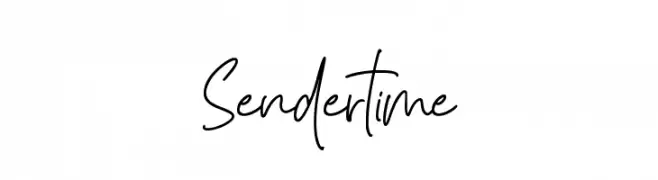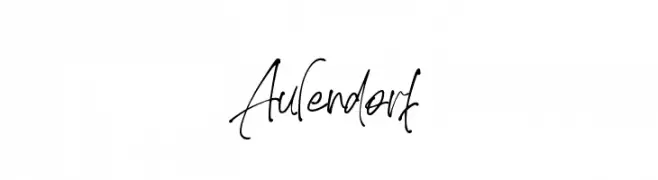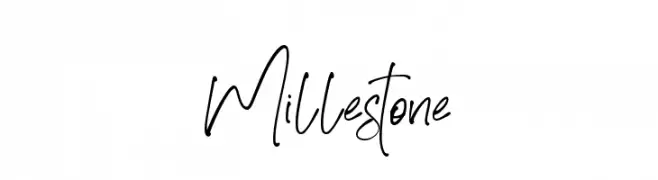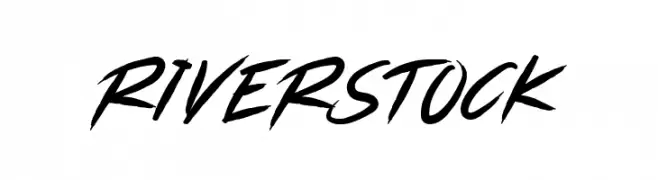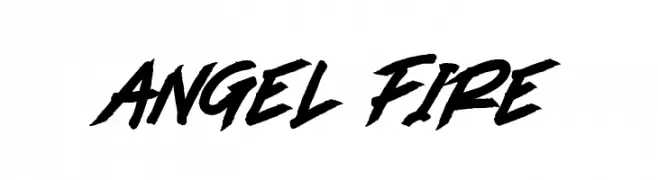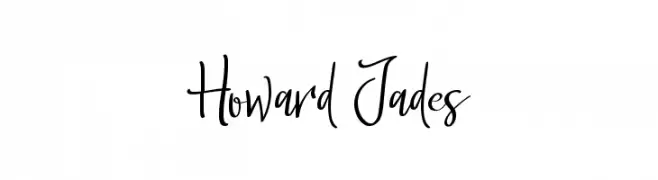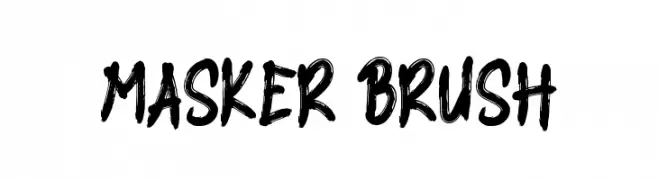
A casual, handwritten font with fluid, dynamic strokes and a natural flow.
A dynamic handwritten font with fluid strokes and playful curves.
A lively and expressive handwritten font with fluid, dynamic strokes.
A bold, brush-style font with dynamic, textured strokes and an expressive, artistic appearance.
A lively and expressive handwritten font with fluid, dynamic strokes.
A bold, energetic script font with dynamic, sweeping strokes.
A bold, dynamic script font with brush-like strokes and a handwritten style.
A lively, handwritten font with dynamic strokes and playful loops.
A bold, dynamic brush-style font with expressive strokes and a hand-painted look.
A bold, energetic script font with fluid strokes and a dynamic style.